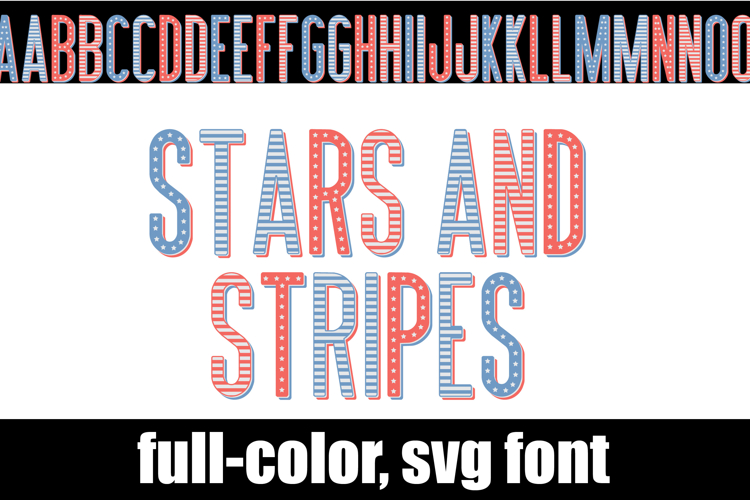
Stars and Stripes Too Color Font
This full-color, stars and stripes font is in a pastel patriotic color palette. The uppercase is stars and the lowercase is stripes. Mix and match for best results. There is an alt case of additional colors of each letter that you can access through your system's character map.